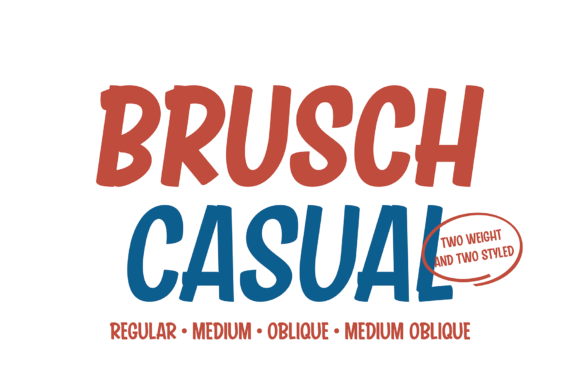
The Perfect Addition to Your Design Arsenal: Brusch Casual Font
Remember the moment when you finally nailed a design project and felt like you’d won a creative lottery? You stared at your screen, admiring the combination of colors, shapes, and typography that came together in perfect harmony. The perfect font choice was the unsung hero behind that triumph. And that’s exactly what the Brusch Casual Font is designed to be – a game-changing addition to your design library that elevates any creation.
This cool, fun, and adaptable display font is more than just a pretty face; it’s a problem-solver that brings personality to your designs. Whether you’re crafting a social media campaign, a blog post, or a marketing brochure, the Brusch Casual Font has the versatility to shine. With its unique charm, it’s no wonder designers are turning to this font to add a touch of whimsy and sophistication to their work.
Brusch Casual Font Key Features
- Font Family: Brusch Casual
- Font Styles: Regular, Italic, Bold, Bold Italic
- Character Set: Latin, Cyrillic, Greek, and Extended Latin character sets
Review of Brusch Casual Font
First off, I’d like to say that Brusch Casual Font has some great qualities that make it stand out. ✨ Its natural and friendly vibe is perfect for creating a relaxed and approachable atmosphere. The font is also highly customizable, which is a huge plus for designers who like to get creative with their typography.
- ✨ Unique and friendly character set
- ✨ Highly customizable with various font weights and sizes
- ✨ Great for body text and headlines
However, there are a few limitations that might be worth considering. ⚠️ The font’s x-height can be a bit inconsistent, which might affect readability at smaller font sizes. Additionally, the font family could be improved with more comprehensive language support.
- ⚠️ Inconsistent x-height in certain font sizes
- ⚠️ Limited language support
Overall, Brusch Casual Font is a solid choice for designers looking to create a friendly and approachable atmosphere. While it has its limitations, its customization options and natural vibe make it a great addition to any design project.
Brusch Casual Font is perfect for:
- Casual event invitations
- Travel and adventure marketing
It’s also great for creating a relaxed, friendly atmosphere in your designs.